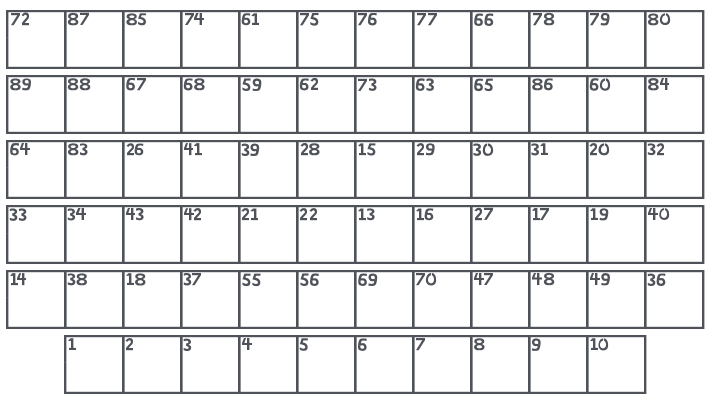
Crossword Font
About Crossword
This font is designed for the creation of crossword puzzles. Now you don't need to buy any special software programs to create a crossword puzzle. All you need to create a professional-looking crossword puzzle is this font and any standard word processing or publishing program.
The keys are mapped from 1 to 92.
To get a blank square, type the tilda (~) left of the number 1. To get a solid black square, type the same key while holding the shift key.
Keys 1 through 9 are mapped as numbered squares 1 through 9. From there, follow the keys in a standard keyboard from left to right to get the rest of the numbers. EVERY character key is utilized. The lowercase p is mapped to square 22, and the key right of the p, the opening square bracket, is mapped to 23.
The last key, the forward slash (/), is mapped to 46. For numbers 47-92, go back to the 1 key and follow the same sequence, but this time while holding down the shift key.